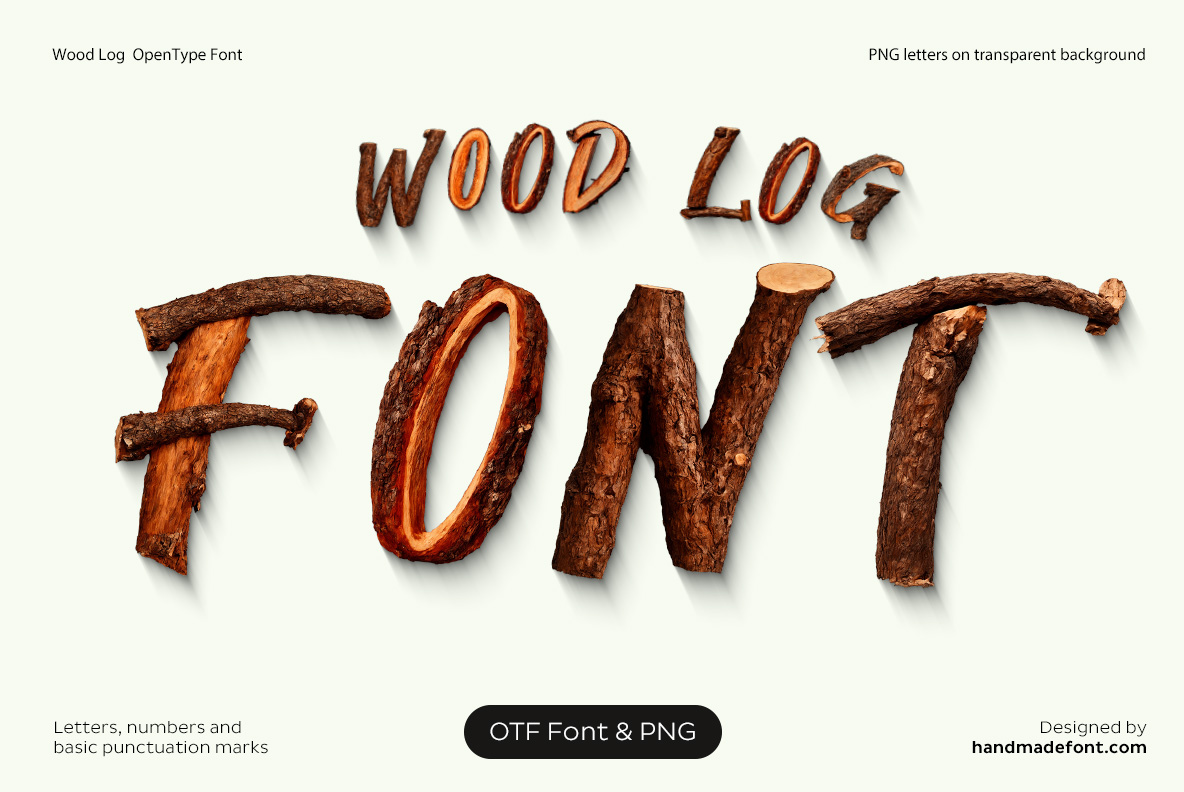
Wood Log Font – Rustic Wooden Log Typography
Wood Log Font creates expressive letterforms from natural logs, branches and bark. Rough surfaces, visible wood grain and irregular organic shapes give the alphabet an authentic woodland character, making it suitable for rustic branding, outdoor projects, posters and nature-inspired designs.